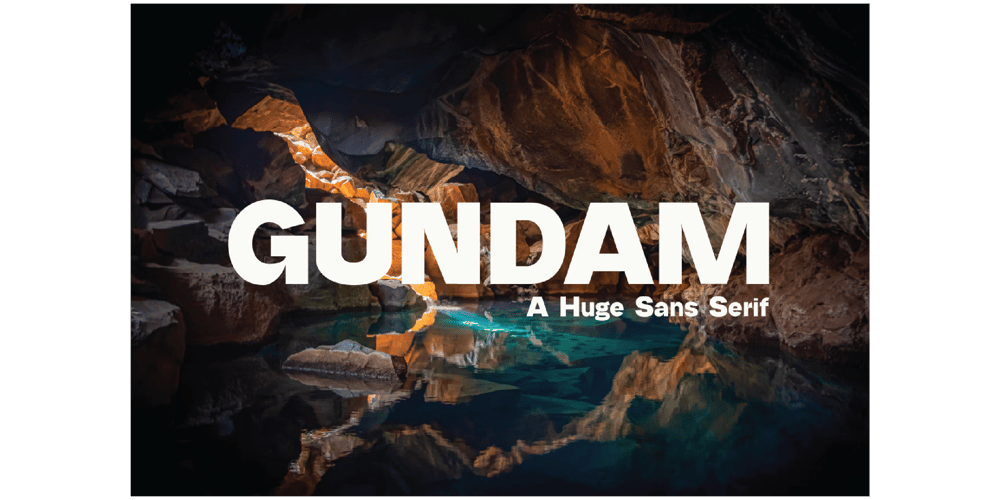
Gundam Font Family was designed by Adrian Syauqi and published by Firstype Studio. Gundam contains 1 styles and family package options. Introducing Gundam, a robust and bold sans-serif font designed to command attention. Gundam is the ultimate choice for those seeking a typeface that makes a bold statement in headlines, especially in sports-related contexts and racing events. It’s available in multiple licensing options to accommodate various design needs.Unleash the Power:Gundam is a typeface that radiates power and strength with its thick and impactful letterforms. When you want your message to stand out and leave an impression, Gundam is your font of choice.Perfect for Headlines and Titles:Gundam excels in headline and title settings. Whether it’s for a book cover, sports event poster, or high-impact marketing material, this font ensures your message is impossible to ignore.Tailored for Sports and Racing:What sets Gundam apart is its suitability for sports-related projects, particularly those involving high-speed racing and dynamic athleticism. It captures the adrenaline and energy of these events.Multiple Licensing Options:We understand that different projects have different licensing requirements. Gundam is available in various licensing options, including personal, commercial, and extended licenses. Choose the one that suits your specific project.Unleash Your Typography’s Potential:With Gundam, you’re not just choosing a font; you’re unleashing the potential for your typography to convey strength, energy, and impact.Choose Your License:Explore our licensing options and select the one that aligns with your project’s needs. Whether you’re a designer, event organizer, or creative enthusiast, Gundam has a license that fits your requirements.Elevate Your Designs with Gundam – Where Boldness Meets Dynamism.This description emphasizes the bold and impactful nature of the “Gundam” bold sans-serif font, its suitability for headlines and sports-related contexts, and the availability of multiple licensing options to cater to different users.